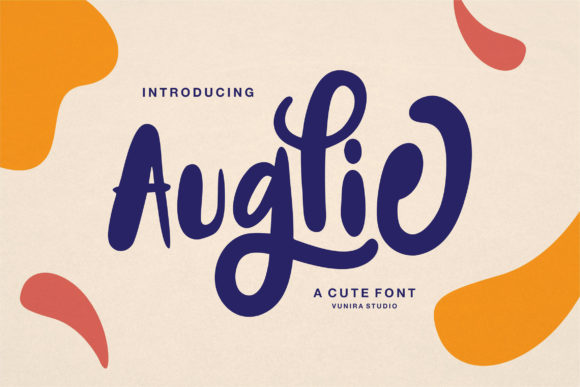
The Auglie Font: A Joyful Addition to Your Design Toolbox
Have you ever been in the middle of a design project, and suddenly, you’re stuck on finding the perfect font? I recall a particularly frustrating experience while working on a wedding invitation project. My client wanted a font that was both elegant and playful, but I just couldn’t seem to find the right fit. That’s when I stumbled upon the Auglie font, and it instantly became my go-to. In this article, I’ll share my love for this adorable font, its features, and how to make the most of it in your designs.
An Honest Review of Auglie Font
The Auglie font has quickly become a favorite in my design toolbox, and here’s why:
• ✨ Cute and joyful: Auglie’s paint-brushed handwritten style adds a touch of whimsy to any design.
• ✅ Incredibly versatile: From wedding invitations to social media posts, Auglie’s charm shines through in various applications.
• 💕 Easy to read: Despite its playful nature, Auglie remains clear and legible, making it perfect for body text.
However, no font is perfect, and Auglie has a few minor quirks:
• 🤔 Limited use in formal contexts: Auglie’s playful nature might not be suitable for very formal or corporate designs.
• ⚠️ Some letters may require manual kerning: As with many handwritten fonts, you might need to adjust the spacing between certain letters for optimal results.
The Story Behind Auglie Font
Auglie was designed with love and care by a talented type designer who wanted to create a font that would bring joy to designers and their clients. The designer’s inspiration came from traditional hand-painted signs and the beauty of imperfection. The result is a font that’s both charming and versatile.
Is Auglie suitable for body text? While Auglie is primarily designed for display text, it’s also legible enough for short paragraphs or captions.